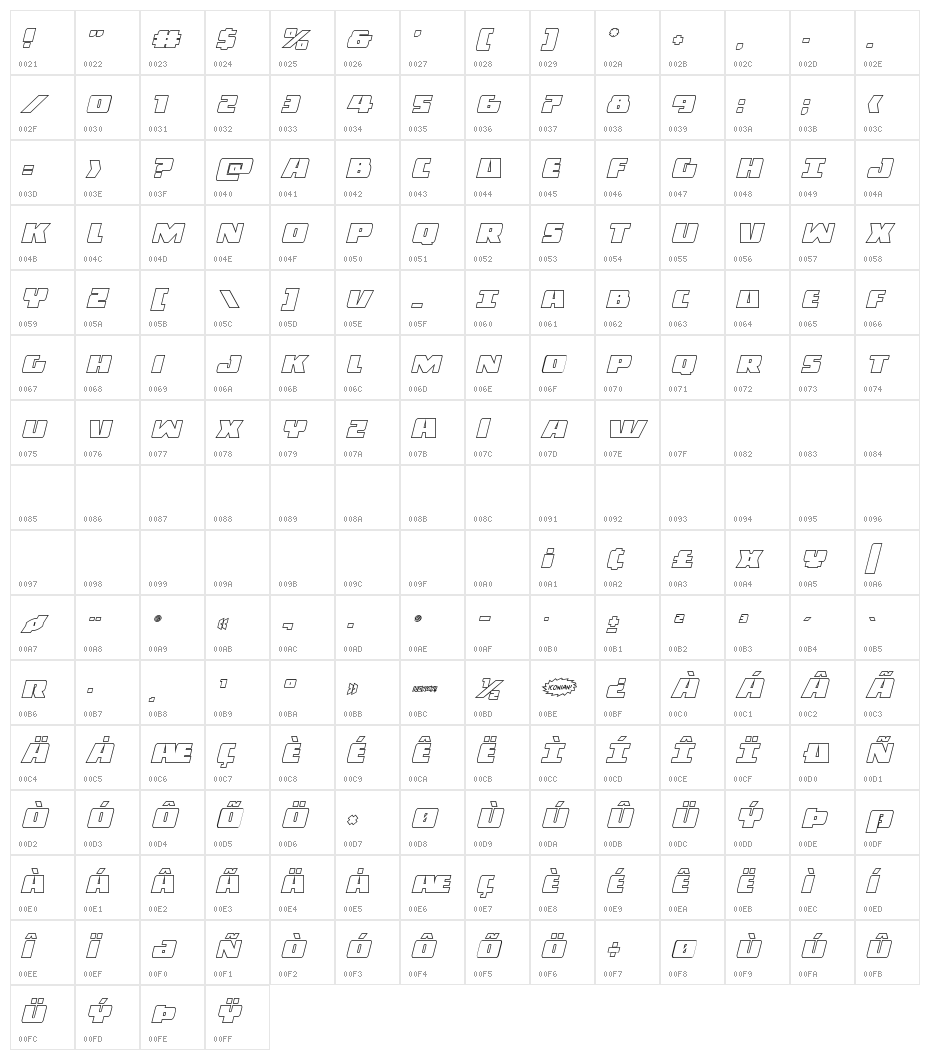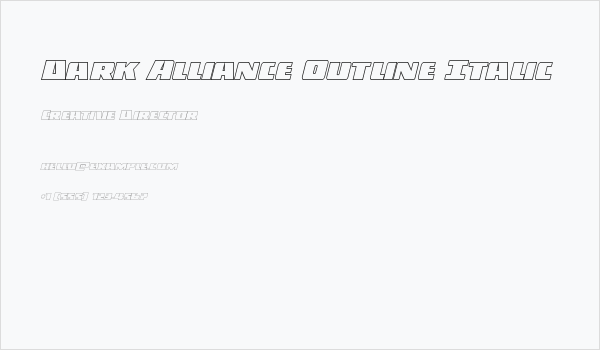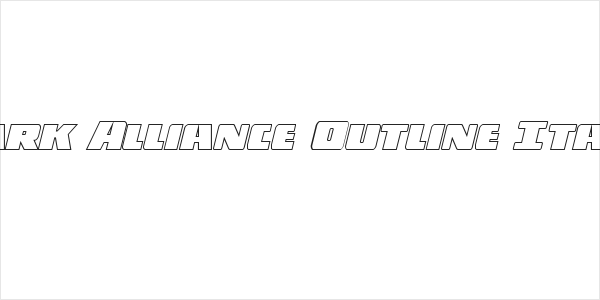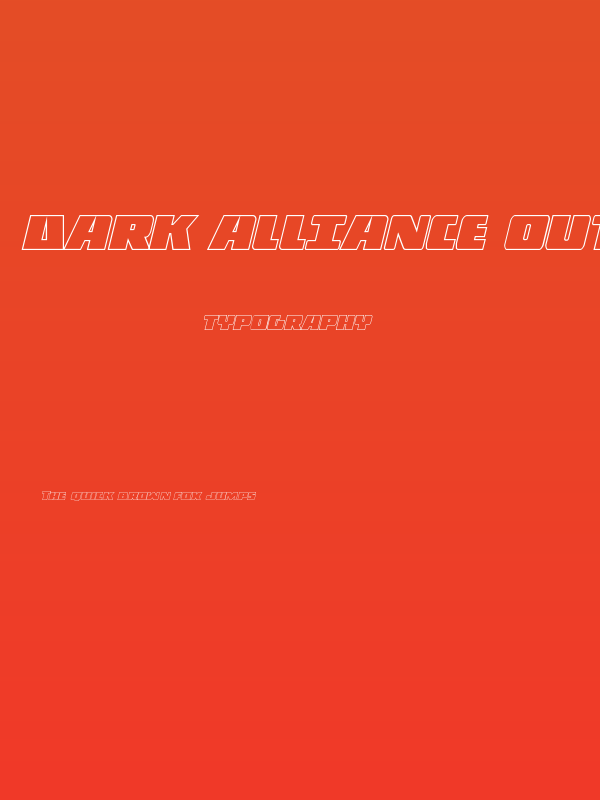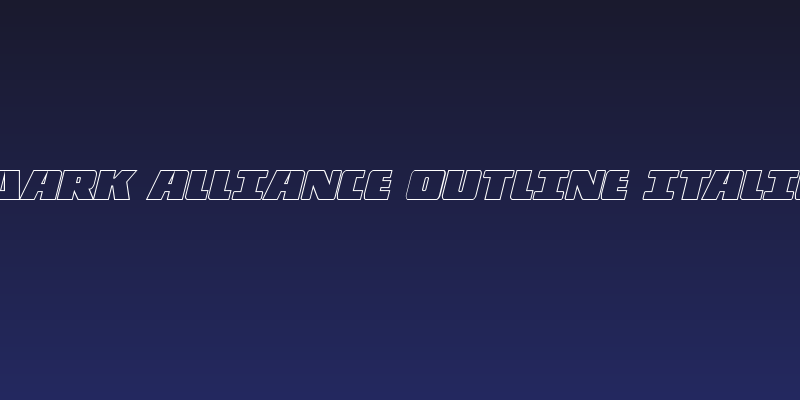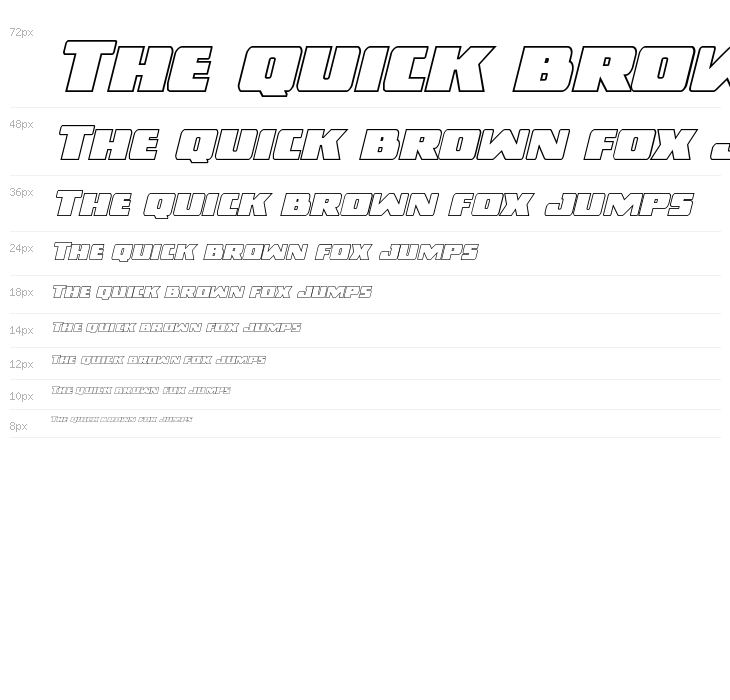
Dark Alliance Outline Italic Font
Dark Alliance Outline Italic Description
This font features a bold, geometric outline style with a futuristic and angular design. The characters are outlined, giving them a hollow appearance, which adds a unique depth and dimension. The italic slant adds a sense of motion and dynamism, making it ideal for projects that require a modern and edgy look. The uppercase and lowercase letters maintain a consistent style, with sharp angles and clean lines. The numbers and special characters are designed to match the overall aesthetic, ensuring uniformity across all text elements. This font is particularly suitable for digital and print media where a standout, contemporary style is desired.
| Proposed Projects | Ideal for video game titles, sci-fi movie posters, tech branding, and futuristic event flyers. |